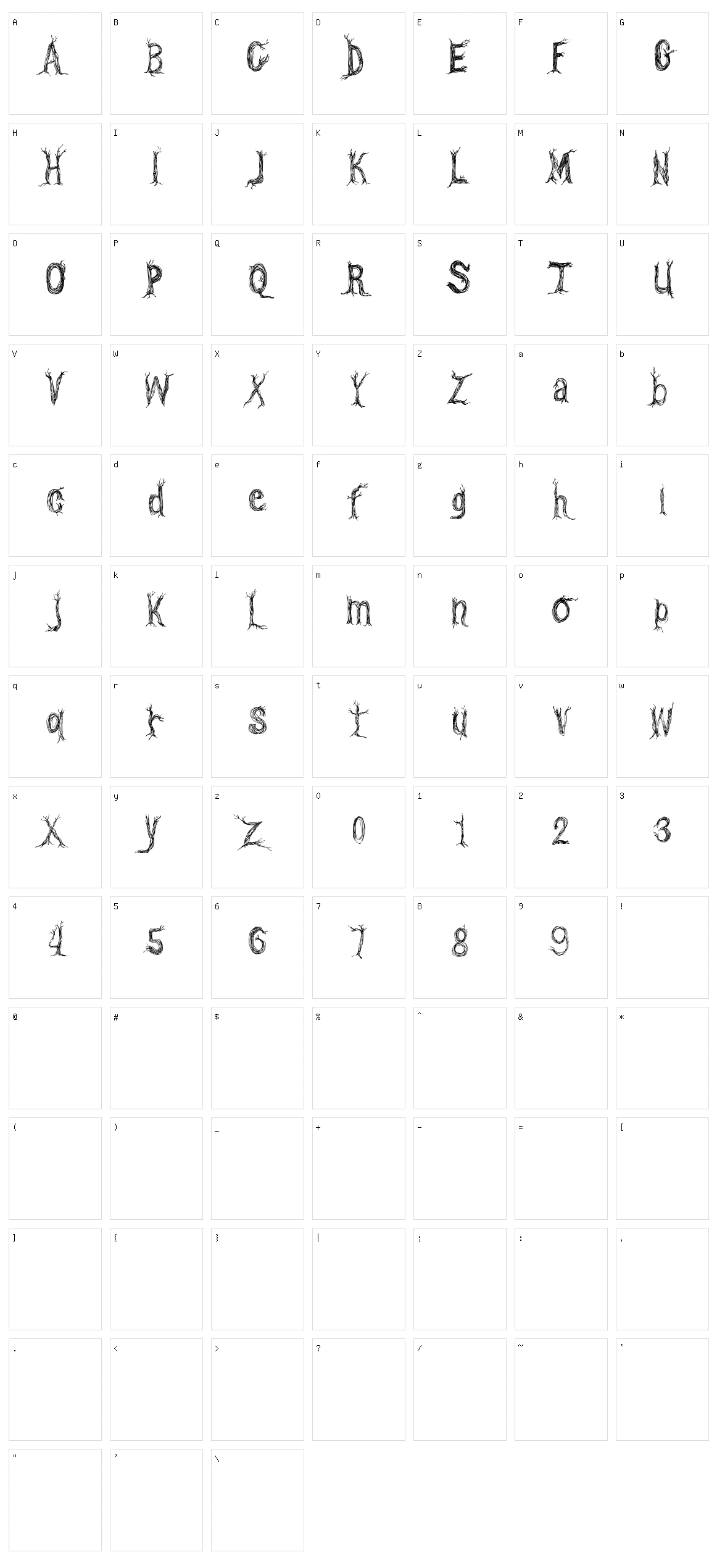
The free font CF One Two Trees is carefully designed by Cloutierfontes, showcasing a thoughtful balance of creativity and usability and falls under the Halloween font style. When you download the ZIP file, it contains only 142.08 KB of font files, making it lightweight and quick to download. Please review the license details below to understand permitted usage and distribution rights. If license information is not available, we recommend using this font for personal projects only or contacting the author directly for commercial usage permissions.